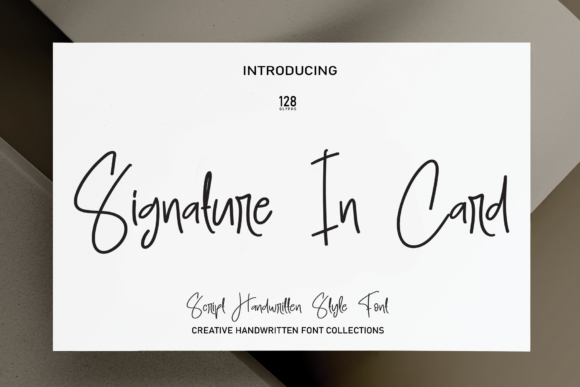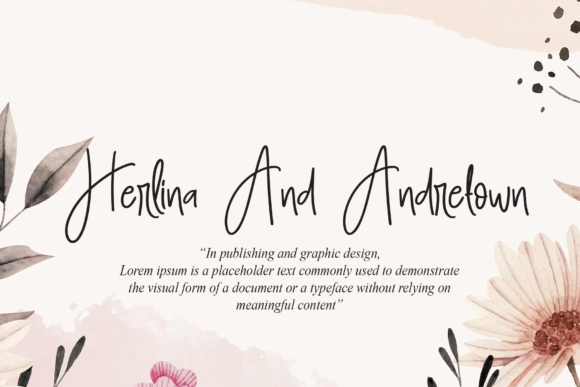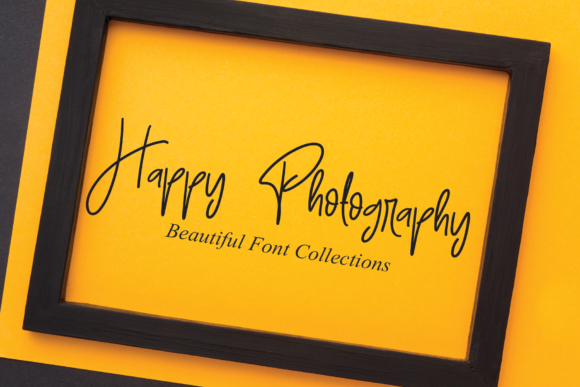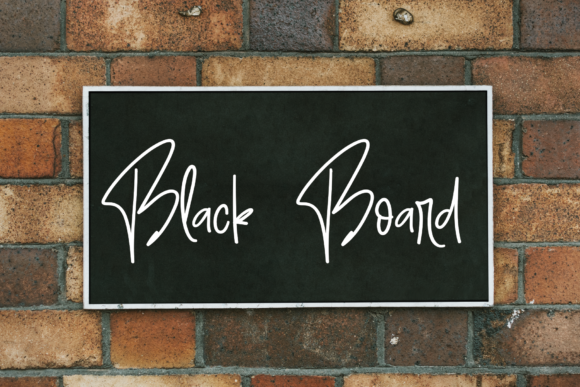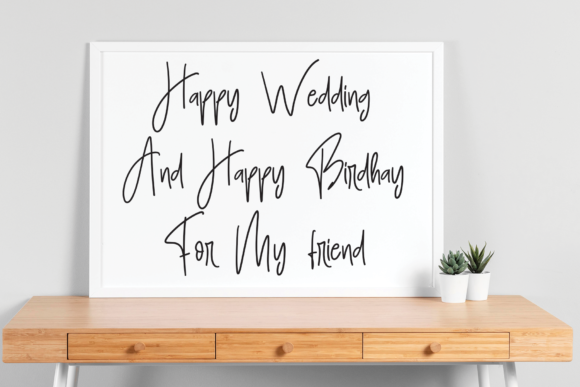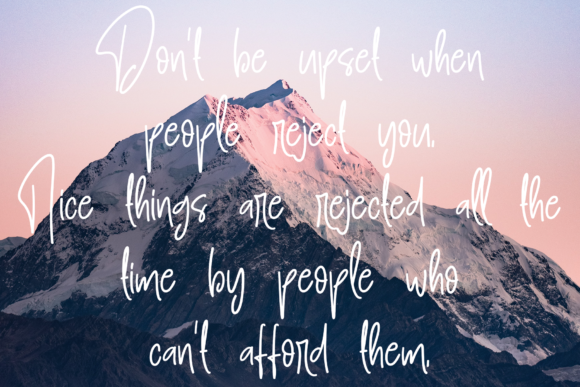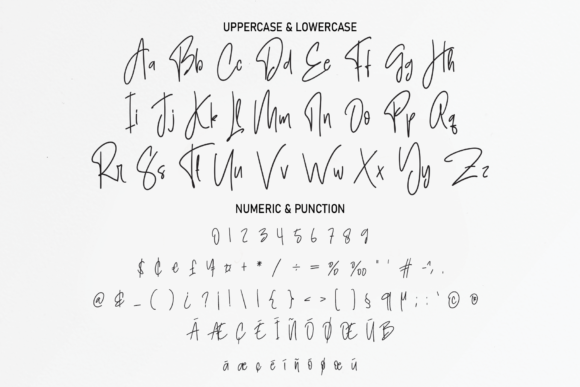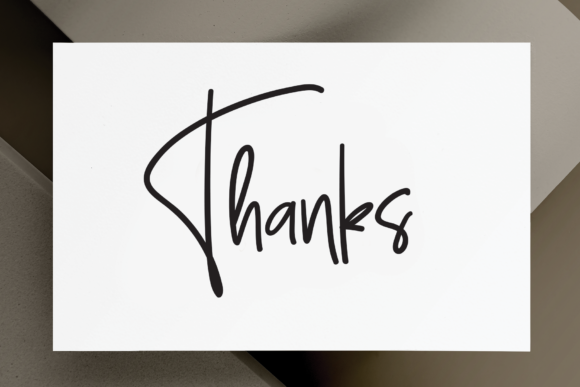
Signature in Card Font
About Signature in Card Font
Presenting “Signature in Card,” a beautiful script font designed to add a touch of elegance and sophistication to your projects. This versatile font is suitable for a wide range of creative endeavors, making it a perfect choice for various applications.
Whether you’re working on blog posts, logos, branding, ads, invitations, greeting cards, planners, photo albums, decorations, or any other project, Signature in Card brings a refined and stylish flair to your designs. The script style of this font adds a personal and handwritten touch, enhancing the overall visual appeal of your creations.
In blog posts and ads, Signature in Card becomes a captivating element that draws attention and communicates a sense of style. Logos and branding benefit from the font’s beautiful script, creating a distinctive and memorable visual identity. Invitations and greeting cards acquire a touch of elegance, setting the tone for special occasions.
Planners and photo albums take on a new level of sophistication with the addition of Signature in Card, turning ordinary layouts into visually pleasing experiences. Decorations, whether for digital or print applications, benefit from the font’s versatile charm, adding a special touch to any setting.
Signature in Card stands out as more than just a font—it’s a design companion that elevates your creative projects with its beautiful script. Its adaptability and refined style make it a valuable asset for bloggers, designers, and anyone seeking to add a touch of elegance to their work. Choose Signature in Card to infuse your projects with a sense of beauty and sophistication, turning every creation into a work of art.